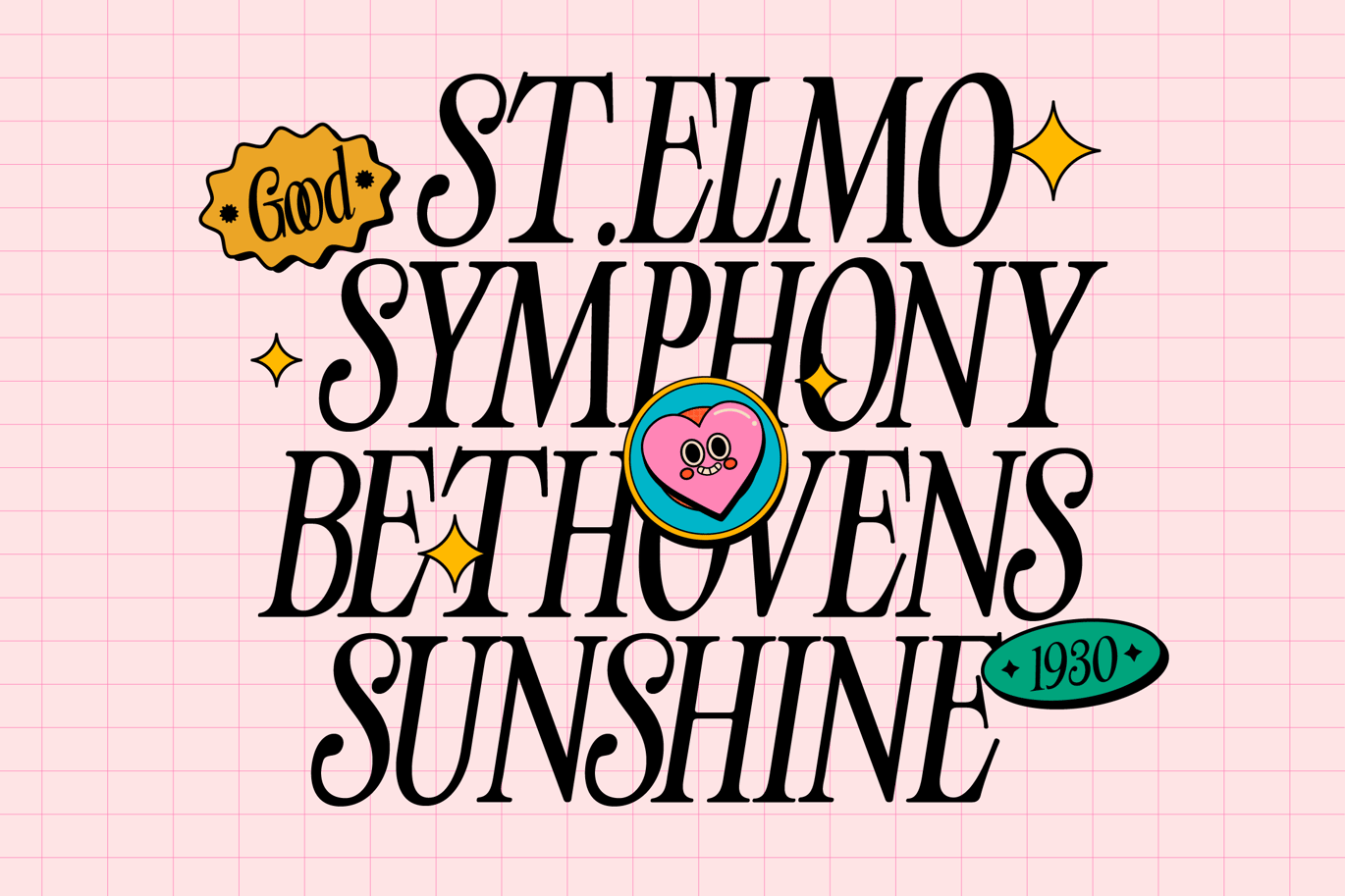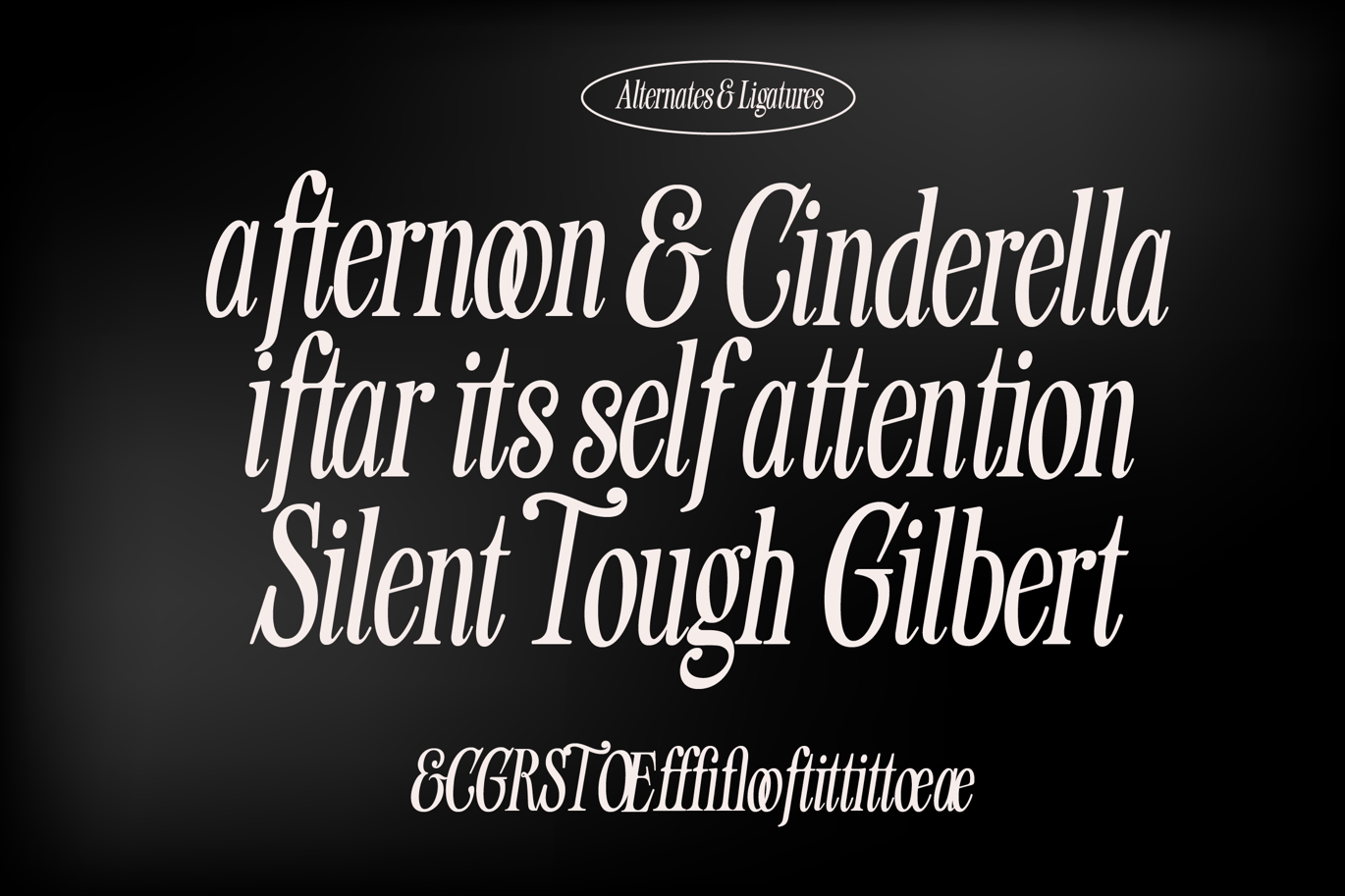
Cd Trovical Calm Retro Serif Font
Cd Trovical Calm Retro Serif Font is a versatile typeface ideal for various projects, including logos, branding, posters, blog headers, advertisements. The free version includes a full set of uppercase and lowercase letters, available in OTF, TTF format.